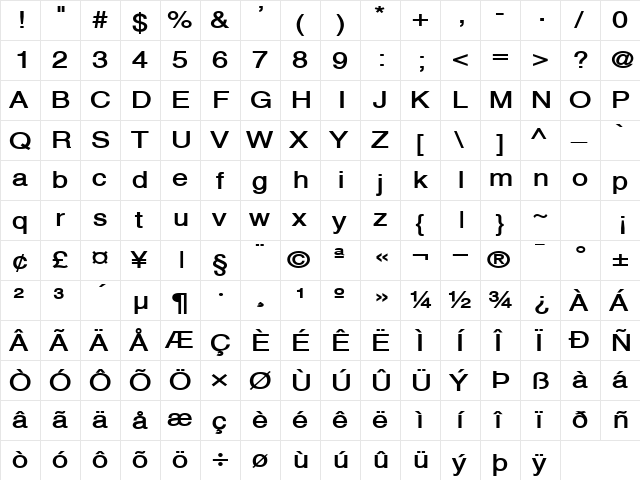
Alps Wide Bold
Design Context for Alps Wide Typeface
Alps Wide takes a measured approach to typography — its balanced proportions and neutral character make it a reliable workhorse for both digital and print work. The heavy weight commands attention and anchors typographic hierarchies.